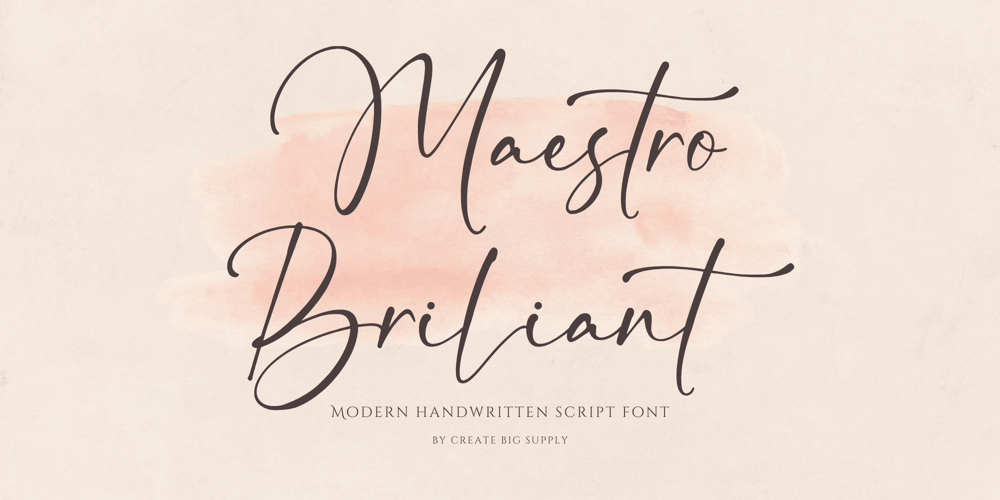
Maestro Briliant Font Family was designed by Irpan Maulana and published by Create Big Supply. Maestro Briliant contains 1 styles and family package options. Experience the charm of Maestro Brilliant, a remarkable Script Signature Handwriting Font that adds a touch of elegance and authenticity to your designs. With its natural and flowing script style, this font is perfect for creating unique signatures, logos, and brand identities that exude personality and sophistication. The font features both uppercase and lowercase letters, along with numbers and punctuations, offering versatility for your design projects. Maestro Brilliant is also multilingual, ensuring seamless communication across different languages. Explore the ligatures and PUA encoding for easy access to special characters and glyphs. Download Maestro Brilliant Script Signature Handwriting Font now and elevate your projects with a personalized touch.